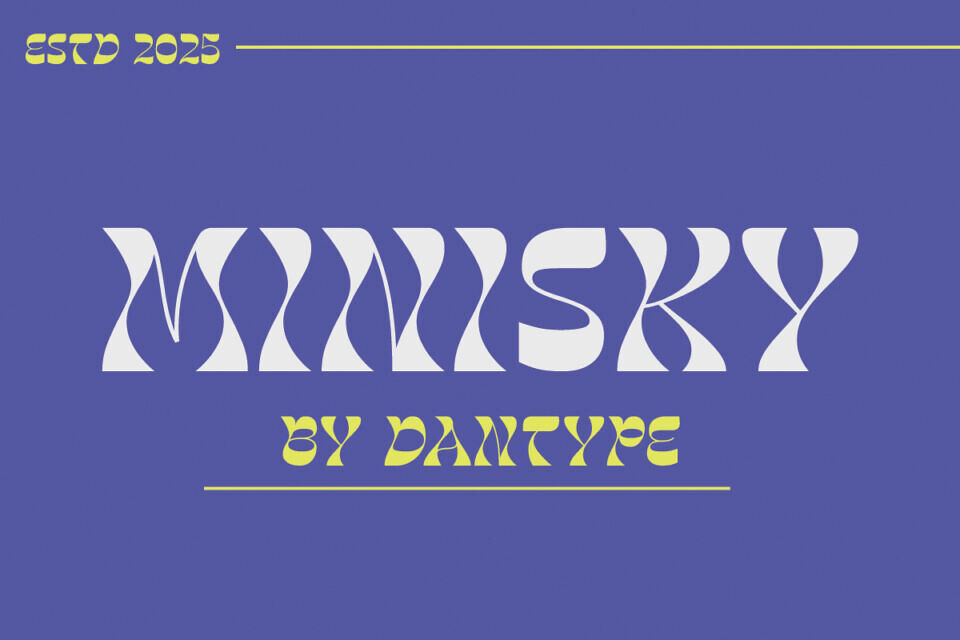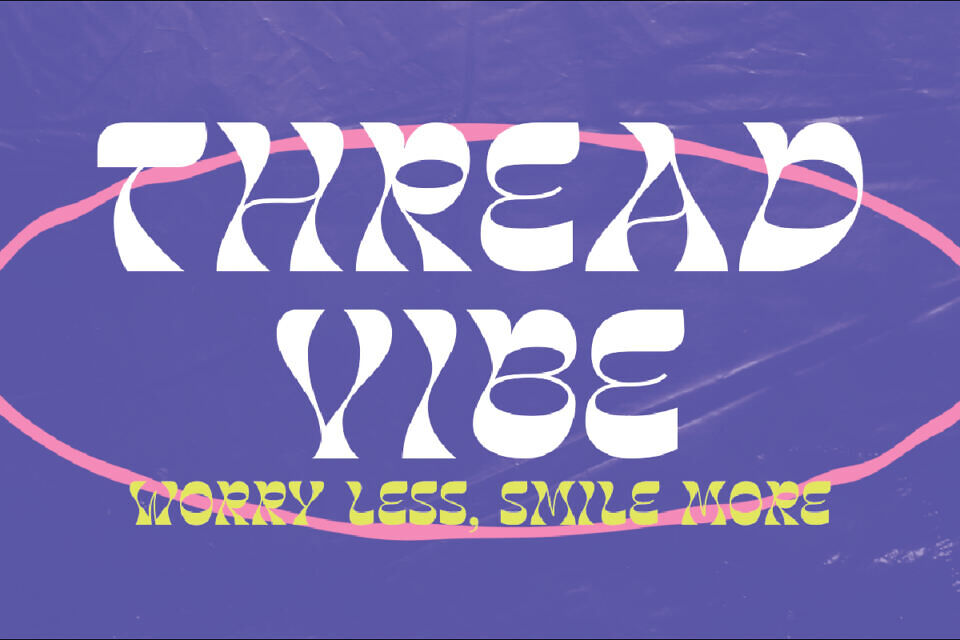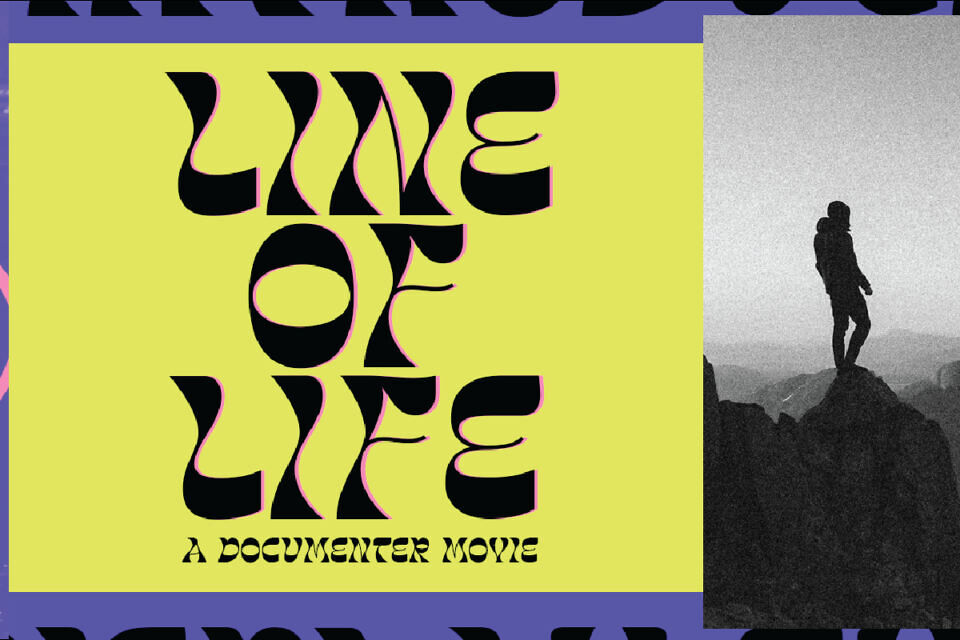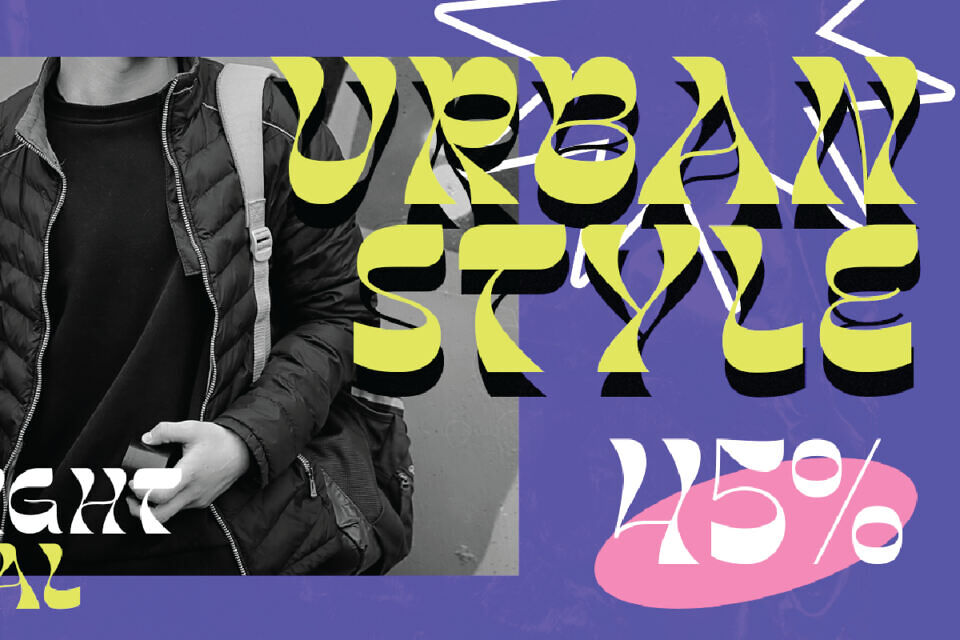
Minsky Font
Minsky is a Psychedelic font by Dantype. This font would be perfect for photography, watermarks, social media posts, advertisements, logos & branding, invitations, product design, labels, stationery, product packaging, special events, and other projects.
Designed by: Dantype